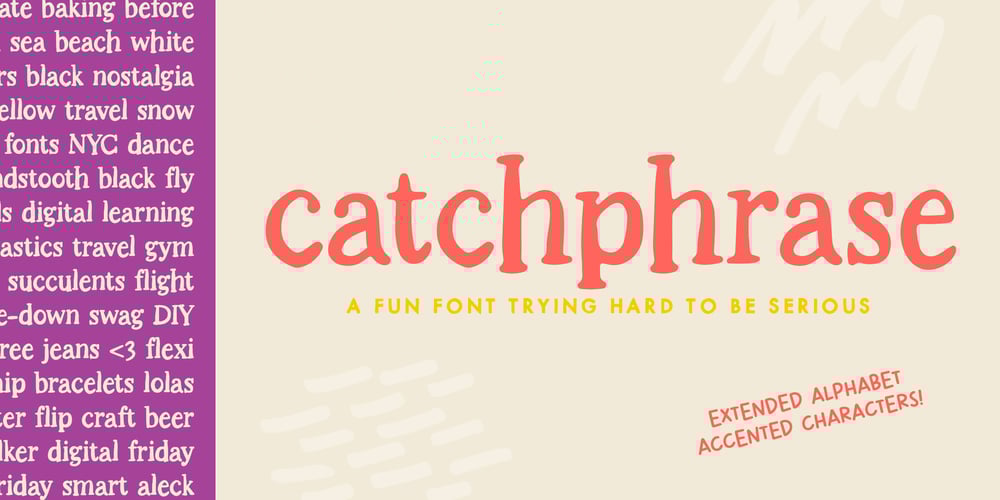
Catchphrase Font Family was designed by Mikko Sumulong and published by Mix Fonts. Catchphrase contains 1 styles and family package options. Mix Catchphrase is a fun and playful handwritten font that tries its best to be a serious serif (although it fails at being serious, in case you were wondering). With its clean handwriting style and serif details, this font is perfect for adding a quirky, DIY feel to your projects. Use Mix Catchphrase to give your designs a creepy edge, perfect for Halloween or any other ghoulish occasion. With the right styling and color palette, this rough and rugged font is sure to bring personality and character to all of your projects. Add some fun to your designs with Mix Catchphrase.MIX CATCHPHRASE includes the following characters: ABCDEFGHIJKLMNOPQRSTUVWXYZ abcdefghijklmnopqrstuvwxyz 0123456789 !@$#%^&*()`~♥✿•· ÷×+−±≈=≠≥≤[]<>‹›:;’”,.|/?{}<>“”‘’-–—_ …©®™<>«»°¹²³ªº¡¿₱¢€£¥¶§№† ÁÀÂÄÃÅĂĀĄÆĆĈČÇÐĐÉÈÊËĖĒĘĜĤIÍÌÎÏĪĮĴŁŃÑŇ ÓÒÔÖÕØŌŐŒŔŘŚŜŠȘŤȚÚÙÛÜŮŰŪŲẂẀŴÝŶŸŹẐŽŻÞ áàâäãåăāąæćĉčçðđéèêëėēęĝĥıíìîïīįĵłńñň óòôöõøōőœŕřśŝšșťțúùûüůűūųẃẁŵýŷÿźẑžżþß